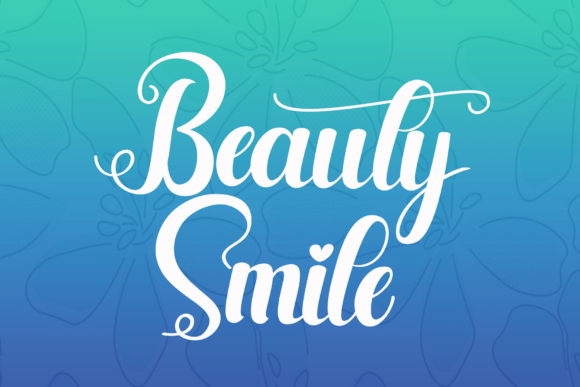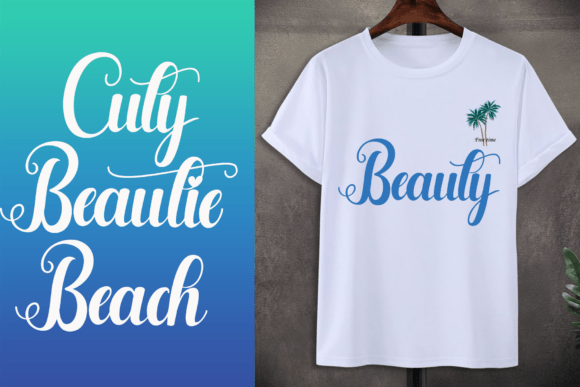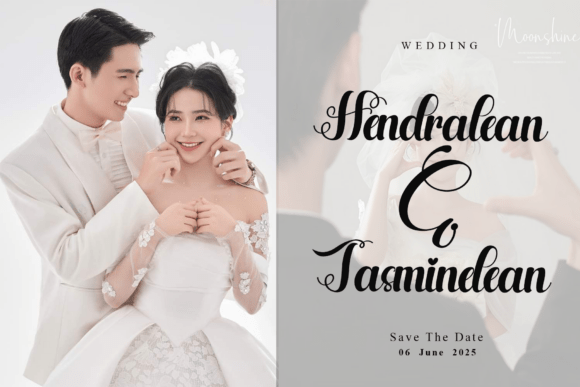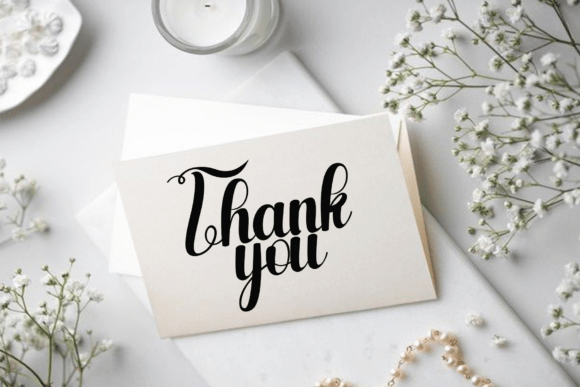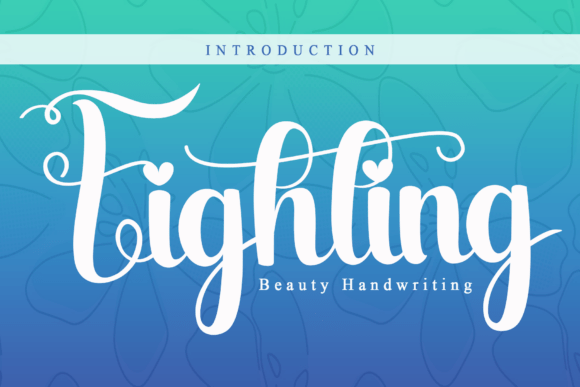
Fighting Font: Elevate Your Designs with Elegance and Sophistication
In the world of typography, fonts play a crucial role in conveying the tone and personality of a design. For those seeking a script font that exudes charm and sophistication, look no further than Fighting Font. This beautifully flowing script font is perfect for designers and crafters looking to add a touch of elegance to their projects.
The Characteristics of Fighting Font
Fighting Font is a script font that boasts smooth curves and a handwritten feel, making it ideal for designs that require a personal touch. Its flowing lines and delicate strokes give it a romantic and whimsical feel, perfect for wedding invitations, personal branding, elegant packaging, and romantic quotes.
One of the standout features of Fighting Font is its versatility. It can be used in a variety of design contexts, from formal to informal, and can be paired with a range of other fonts to create a unique and visually appealing design.
Perfect for Wedding Invitations and Personal Branding
Wedding invitations are a great way to showcase the beauty of Fighting Font. The font’s elegant and sophisticated feel makes it perfect for formal wedding invitations, while its handwritten feel adds a touch of warmth and personality. Whether you’re a designer looking to offer custom wedding invitation designs or a crafty DIY bride, Fighting Font is a great choice.
Personal branding is another area where Fighting Font shines. With its unique and elegant feel, it’s perfect for creating custom logos, business cards, and other marketing materials that require a touch of sophistication.
Elegant Packaging and Romantic Quotes
Fighting Font is also well-suited for elegant packaging designs. Its flowing lines and delicate strokes make it perfect for creating beautiful labels, tags, and other packaging materials that require a touch of whimsy and romance.
For designers and crafters who love to create romantic quotes and typographic art, Fighting Font is a great choice. Its elegant feel and flowing lines make it perfect for creating beautiful and inspiring quotes that are sure to delight.
Tips for Using Fighting Font
To get the most out of Fighting Font, here are a few tips to keep in mind:
- Pair it with a sans-serif font for a modern and elegant look.
- Use it in combination with floral patterns and illustrations for a romantic and whimsical feel.
- Don’t be afraid to get creative and add your own personal touches to the font.
Fighting Font is a beautifully flowing script font that is sure to elevate your designs with its elegance and sophistication. With its smooth curves and handwritten feel, it’s perfect for wedding invitations, personal branding, elegant packaging, and romantic quotes. Whether you’re a designer or a crafter, Fighting Font is a great choice for anyone looking to add a touch of charm and whimsy to their projects.